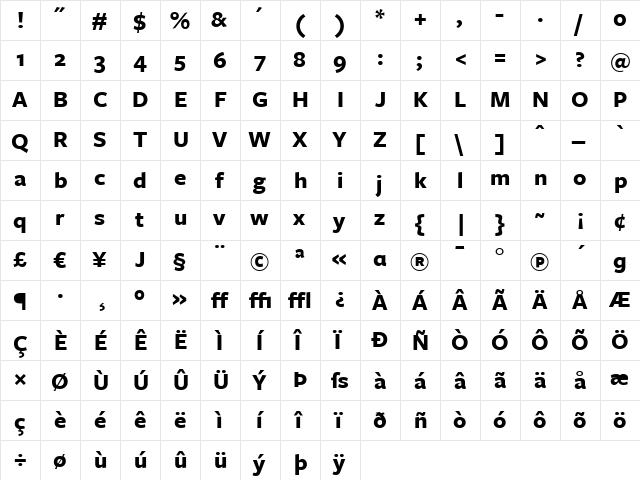
FreightSans Bold
| Designer | Joshua Darden |
Design Context for FreightSans Typeface
FreightSans is a composed and adaptable typeface that performs quietly and consistently across a wide range of design contexts. The heavy weight commands attention and anchors typographic hierarchies.